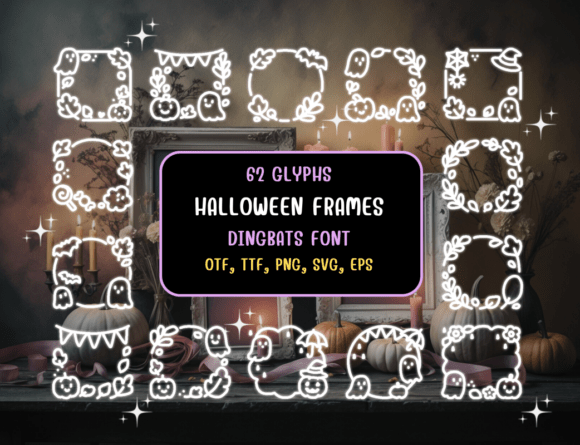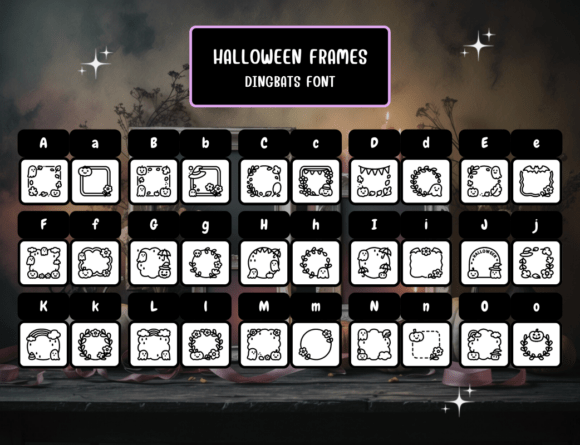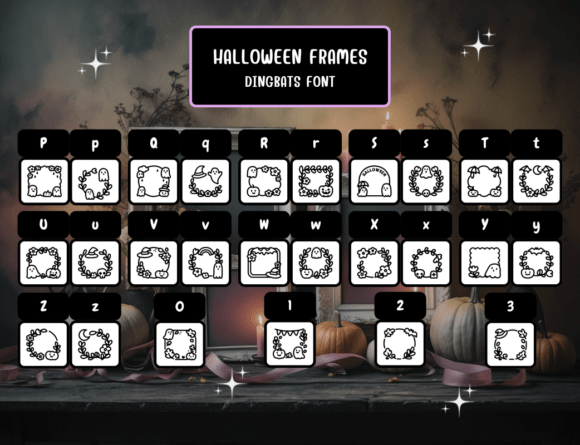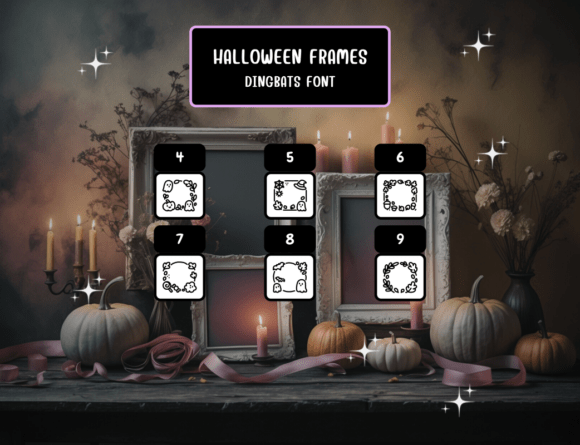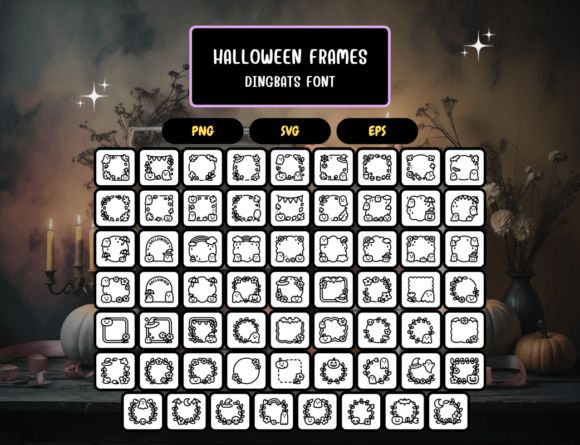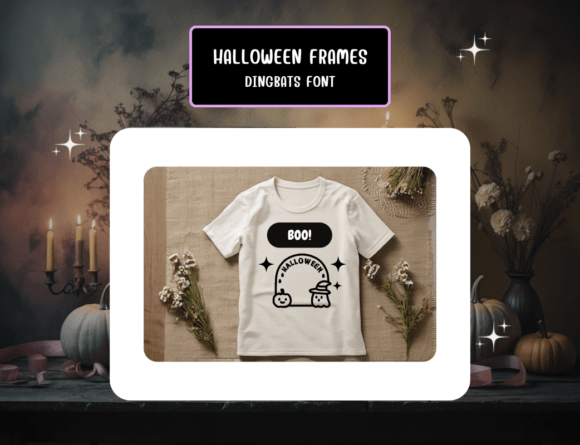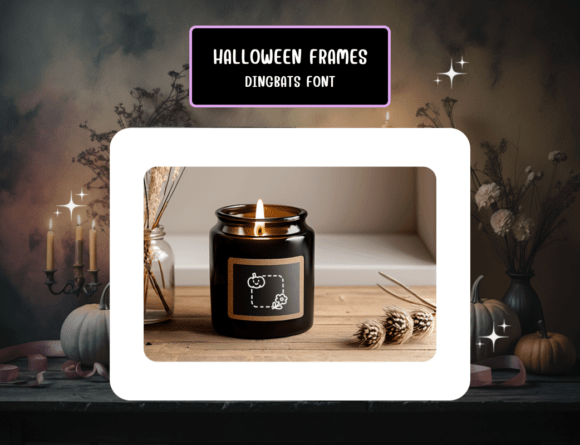
A Hauntingly Charming Font for Your Halloween Creations
As the crisp autumn air sets in and the jack-o-lanterns begin to glow, many designers start brainstorming ideas for their Halloween-themed projects. The excitement of creating something spooky-cute and memorable can be a thrilling experience. But, have you ever found yourself stuck on the perfect frame to complement your design?
Enter the Halloween Frames Font, a delightful Dingbats font filled with hand-drawn Halloween Frames illustrations. With its 62 unique glyphs, this font is a treasure trove of whimsical Halloween-themed borders, from ghosts and pumpkins to bats and stars. Perfect for party invitations, social media, stickers, and more, the Halloween Frames Font is a valuable addition to any designer’s toolkit. Its versatility and ease of use make it an ideal choice for labels, packaging, stickers, greeting cards, educational materials, and creative projects alike.
Halloween Frames Font Key Features
- Font Styles: Halloween Frames Font offers a variety of spooky and festive font styles, including bold, italic, and regular.
- Character Set: The font includes a comprehensive set of characters, including uppercase and lowercase letters, numbers, punctuation, and special symbols.
- Unique Characteristics: Halloween Frames Font features intricate frames and borders, adding a spooky touch to any text, making it perfect for Halloween-themed designs, invitations, and party decorations.
Halloween Frames Font Review
I recently had the chance to work with the Halloween Frames Font, and I must say it’s a unique addition to any design project. ✨ The font’s ability to add a spooky touch to any text is undeniable. It’s perfect for Halloween-themed designs, but also works well for other seasonal or holiday projects.
The font’s design is quite elaborate, with intricate details and frames surrounding the text. This adds a level of depth and visual interest to any design. ✨ The font also comes in a range of sizes and styles, making it easy to customize to fit your needs.
- ⚠️ Limited versatility – the font is quite specific to Halloween or seasonal themes, which may limit its use in other projects.
- ⚠️ Overly ornate design – while the font’s details are impressive, they can also be overwhelming if not used carefully.
Overall, the Halloween Frames Font is a fun and creative addition to any design project. While it may have some limitations, its unique design and versatility make it a great choice for designers looking to add a touch of Halloween magic to their work.
The Halloween Frames Font is perfect for creating spooky and festive designs for Halloween and other fall-themed events. Some common use cases include:
- Halloween invitations and party decorations
- Spooky social media posts and graphics
- Fall-themed blog posts and articles
- Customized Halloween-themed merchandise